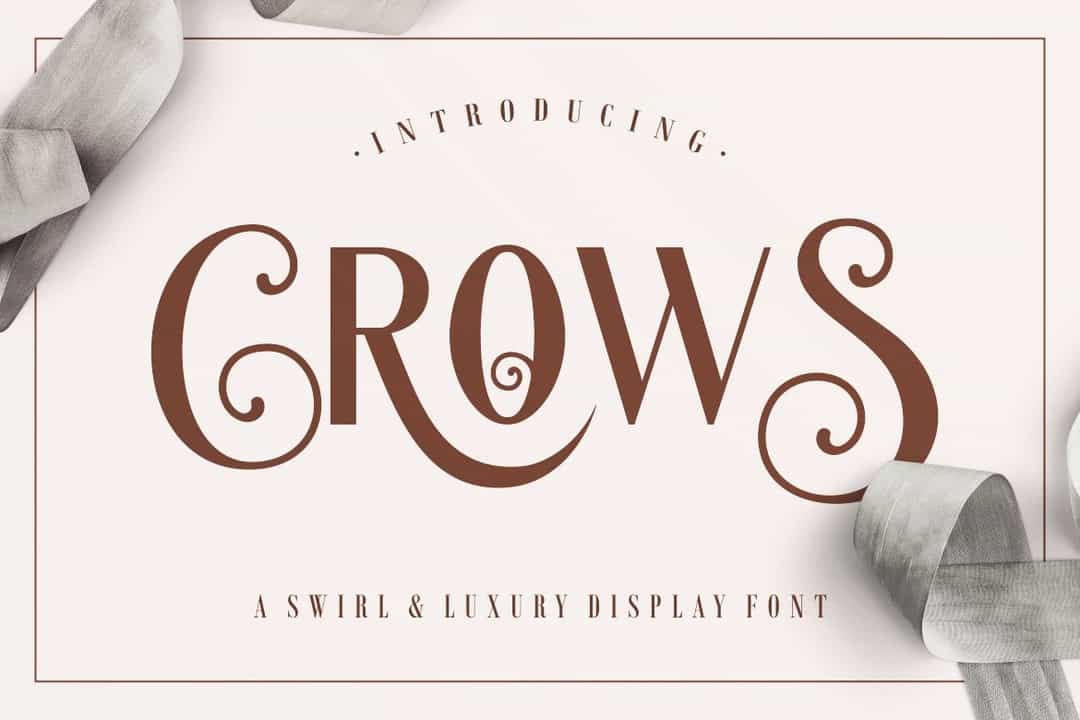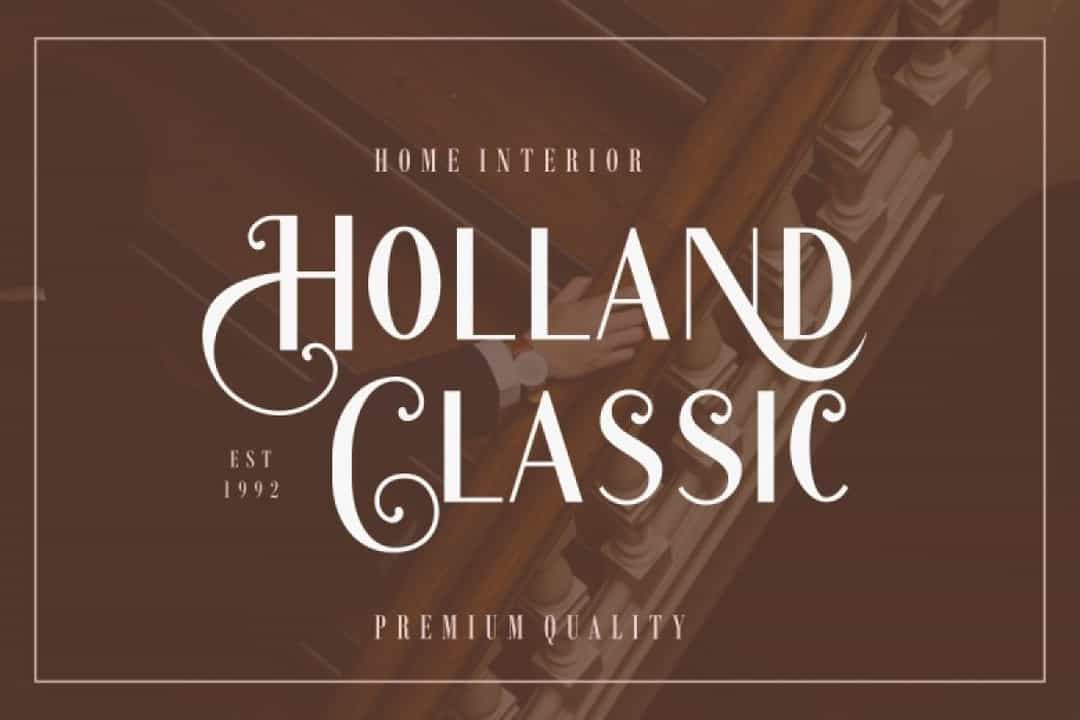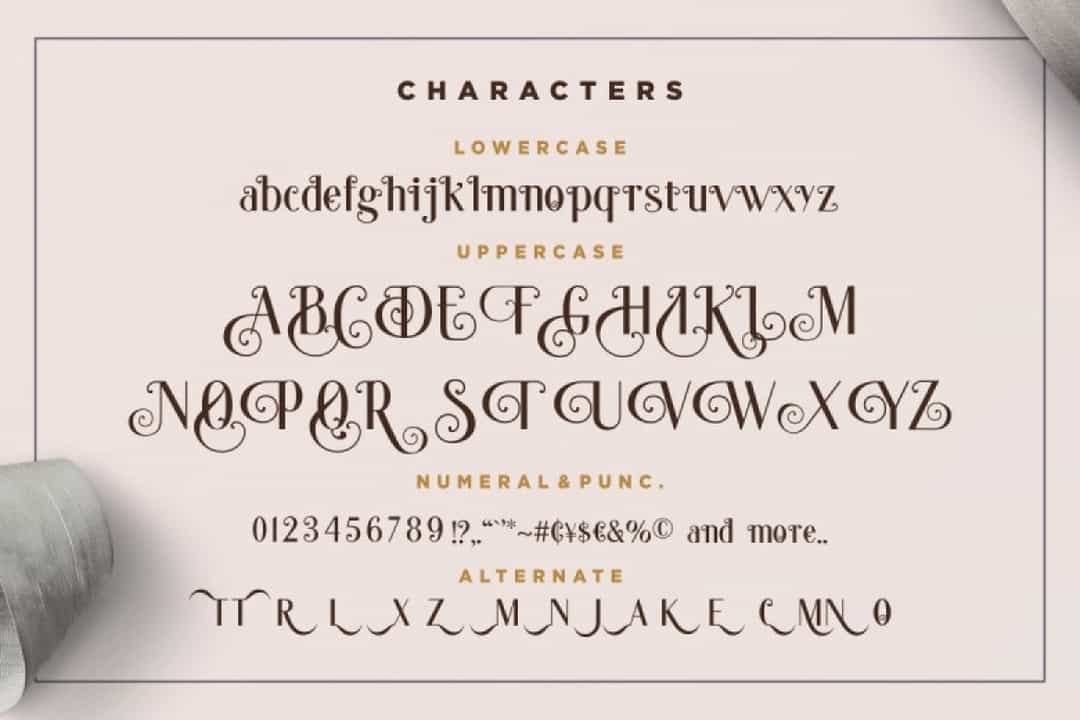
Crows font is sophisticated yet playful at the same time. Perfect for headlines, branding, and more; add this versatile display font to your next layout to give it that unique touch!